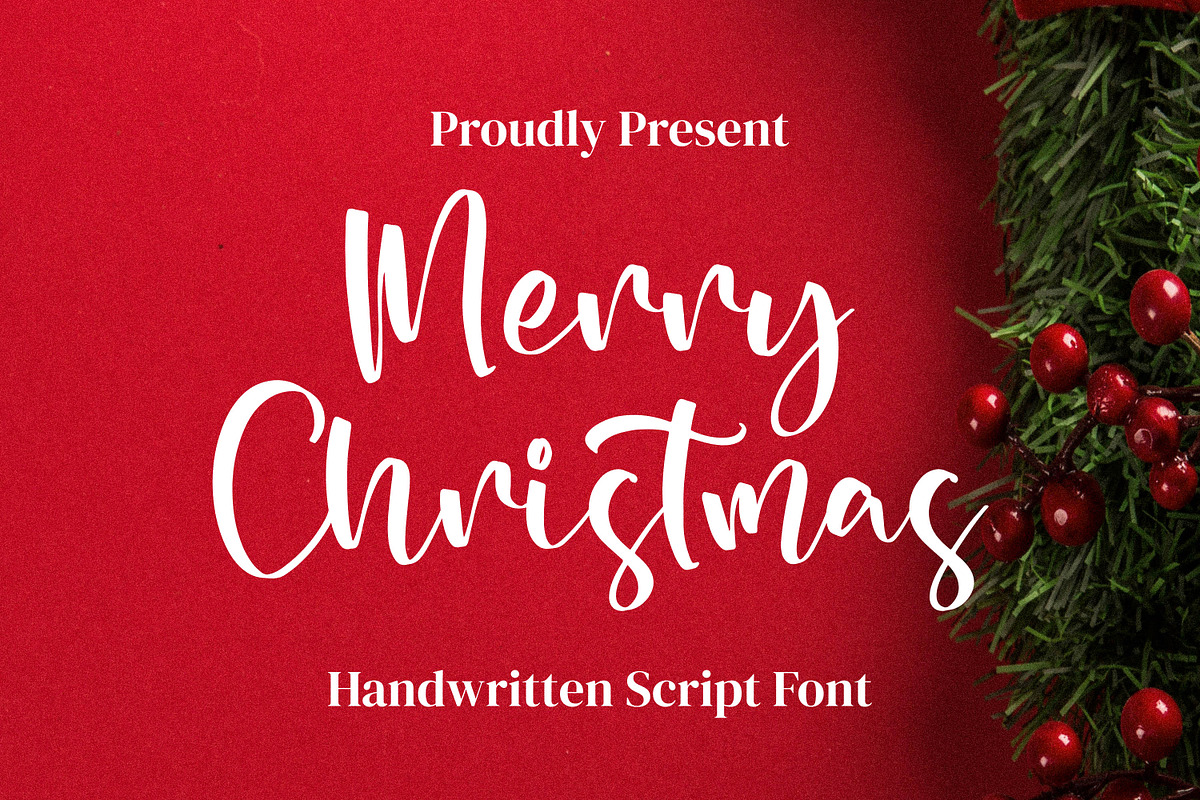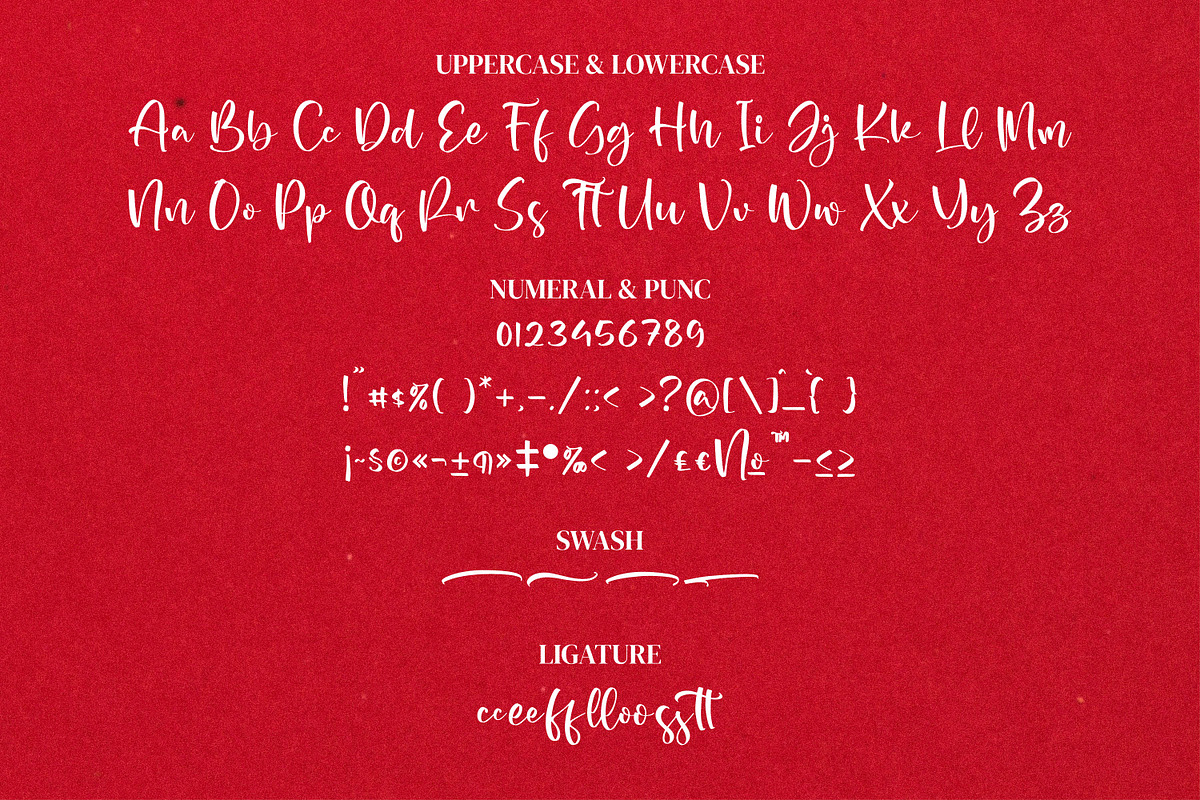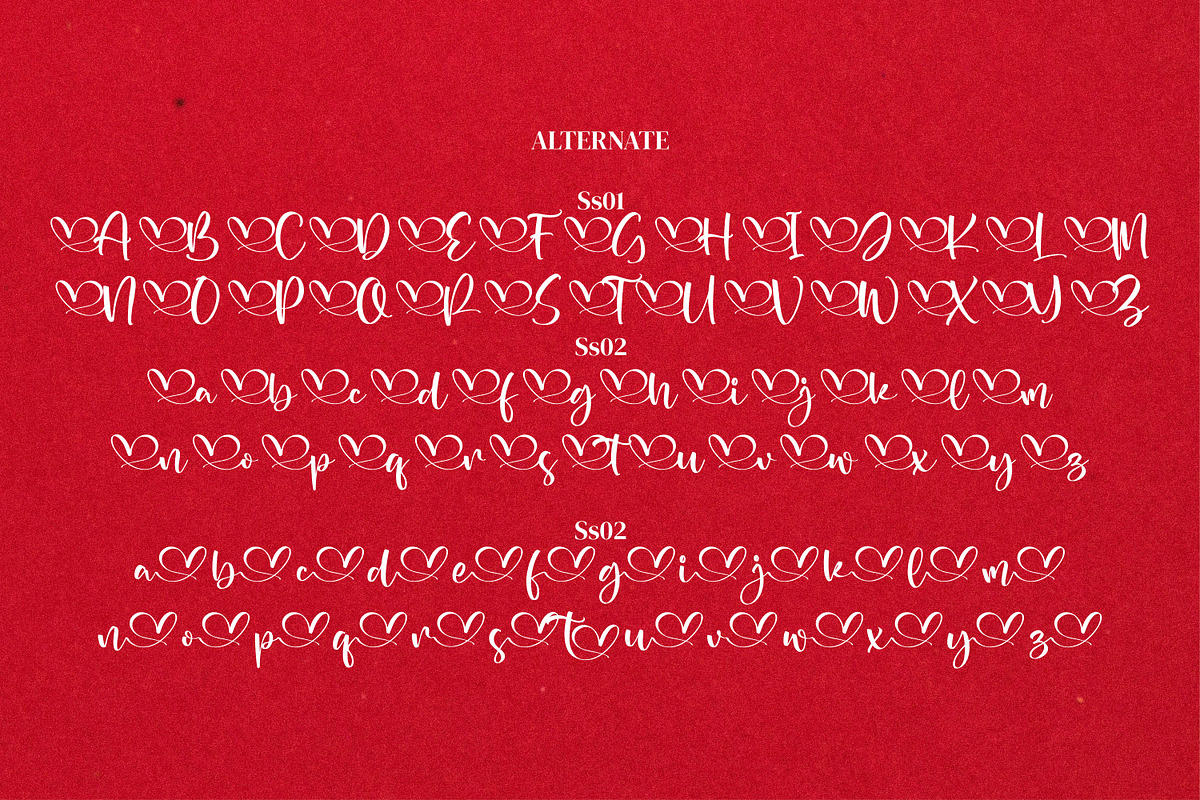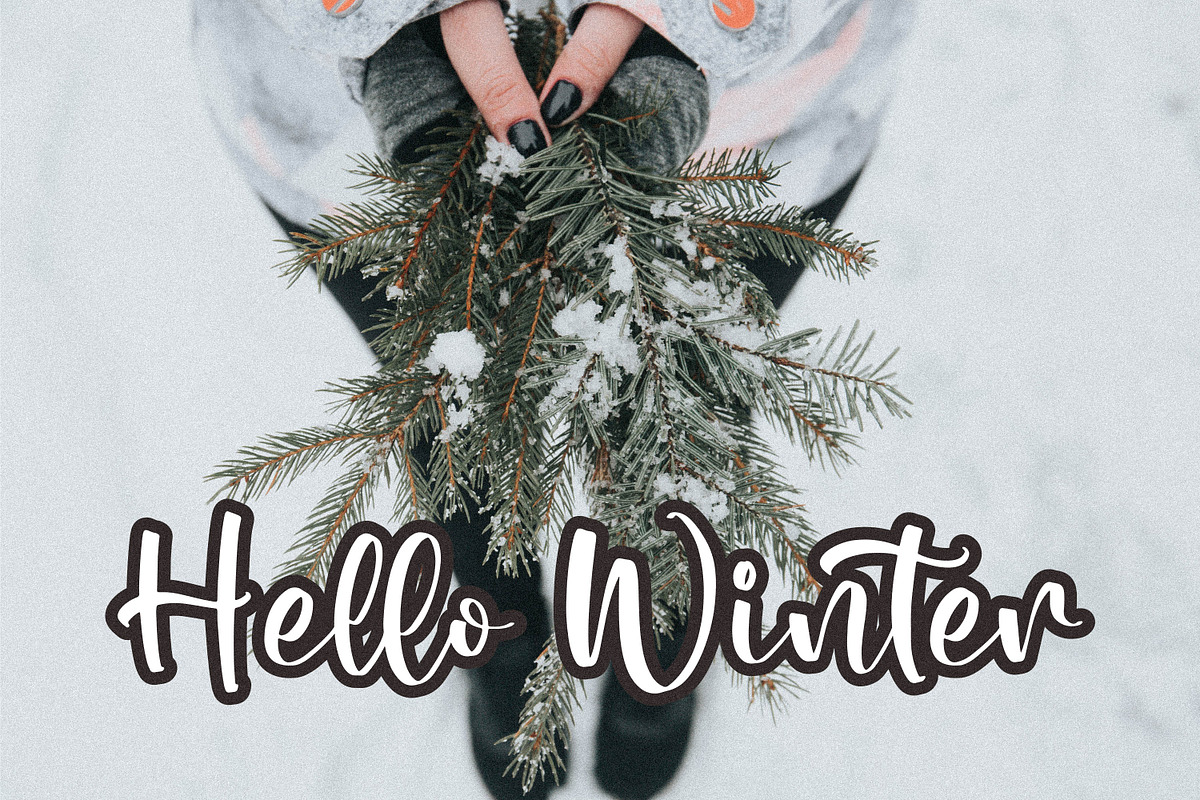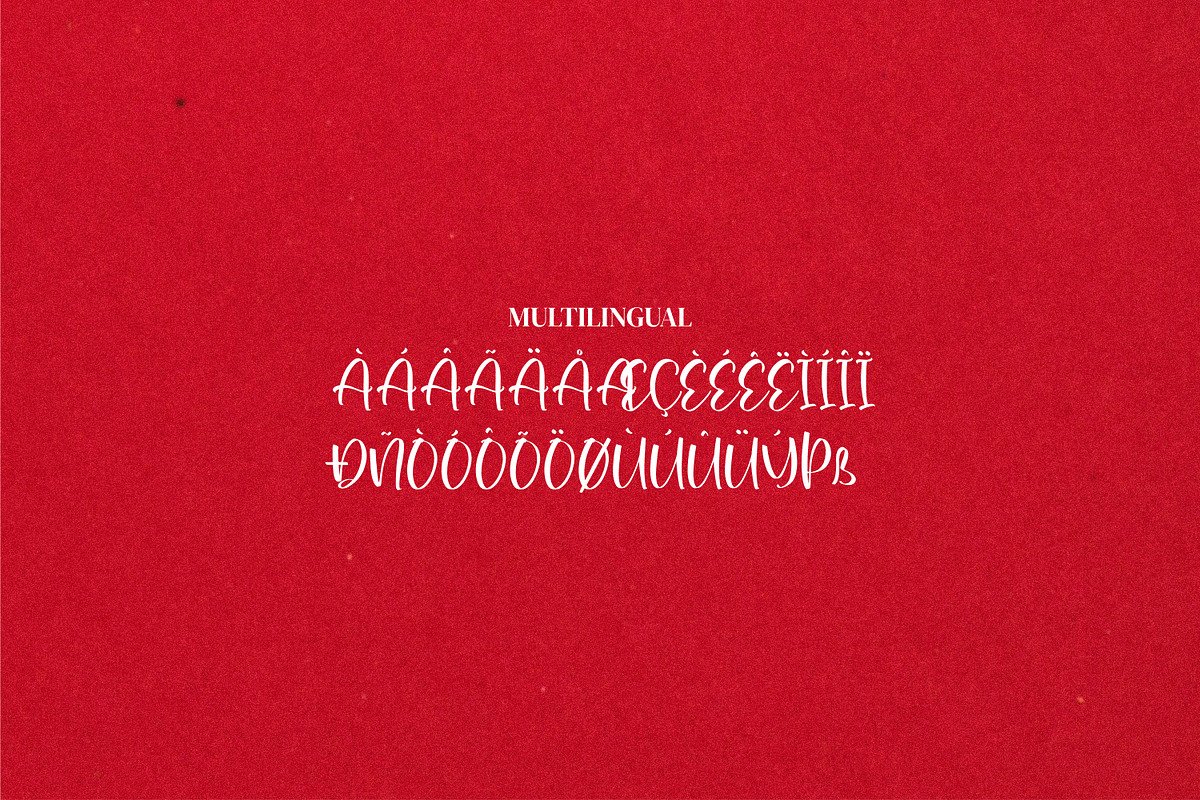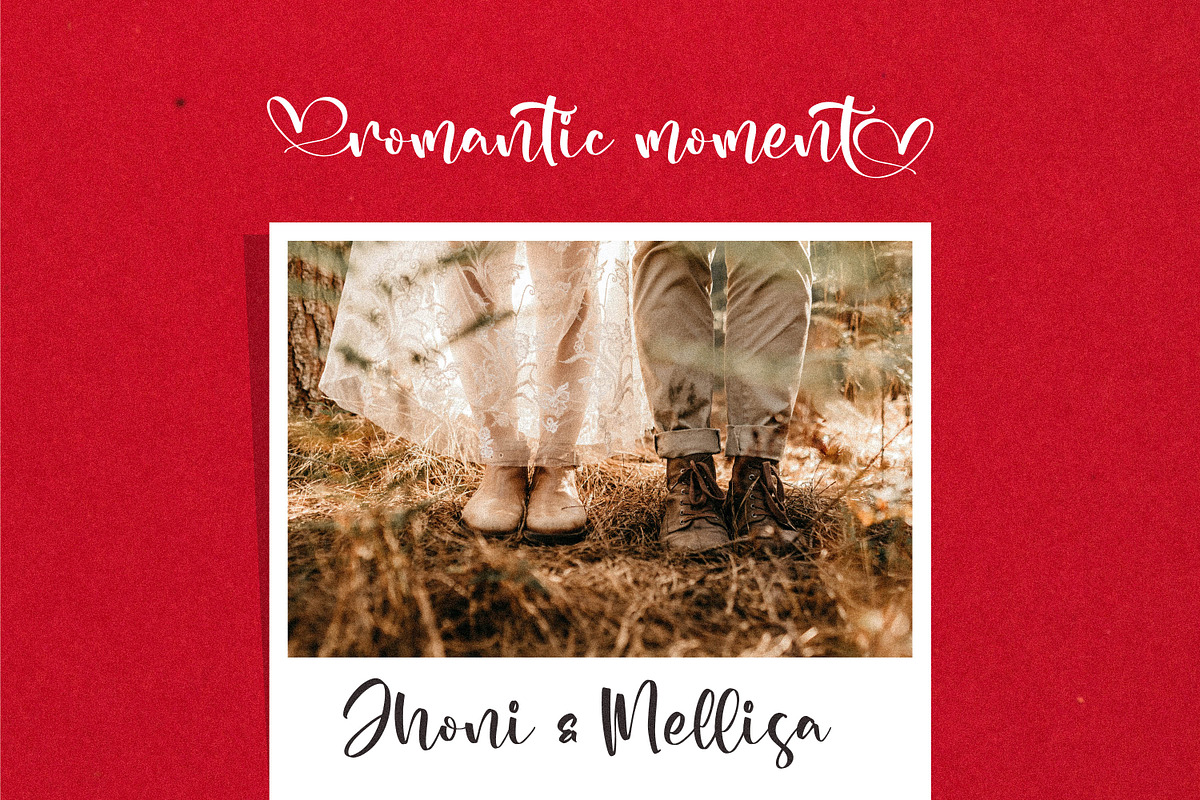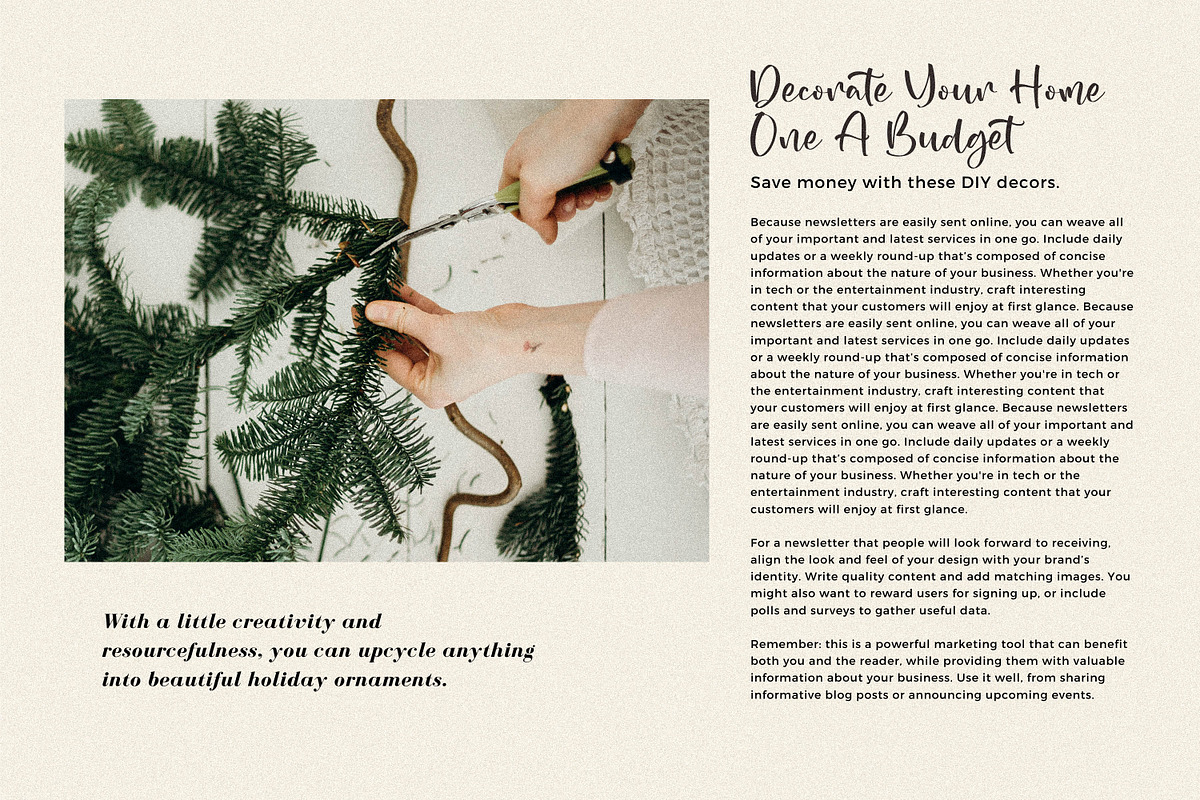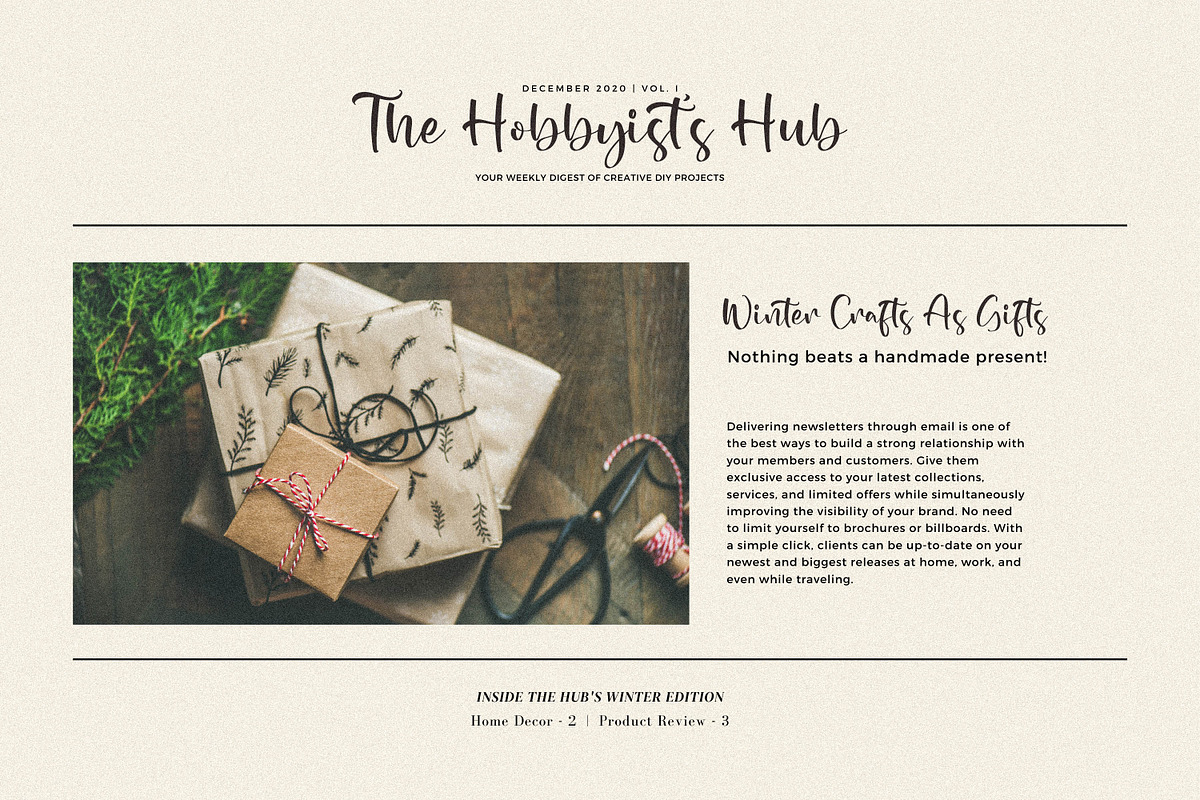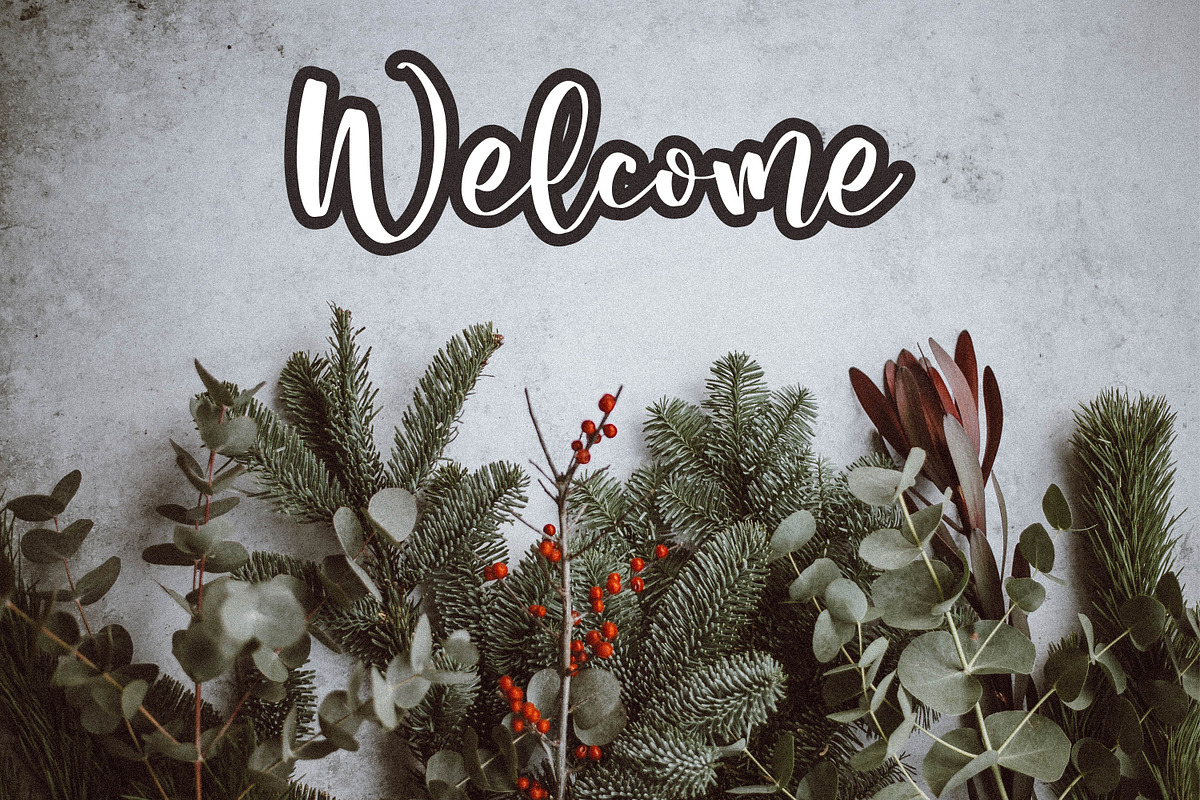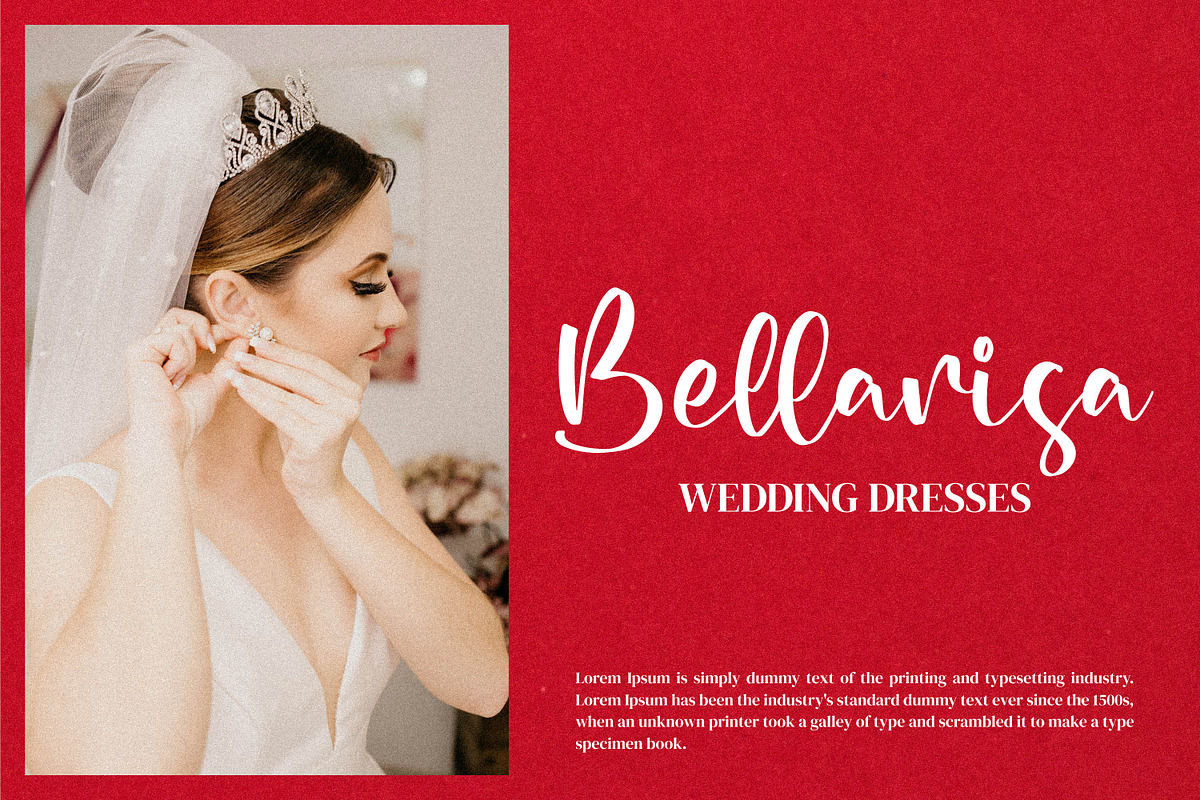
Merry Christmas
Merry Christmas - Handwritten Script Font, from Integritype Studio, is a premium Handwritten Script Font, perfect for any project like: logos, branding projects, homewares designs, product packaging, mugs, quotes, posters, shopping bags, t-shirts, covers books, business cards, invitation cards, greeting cards, labels, photography, watermarks, special events and all your other luxury projects that require a premium taste.
Ligatures, Alternatives & Swashes